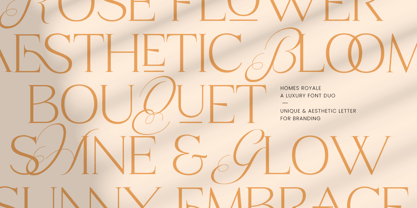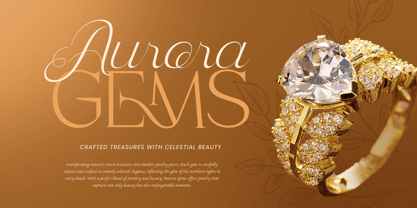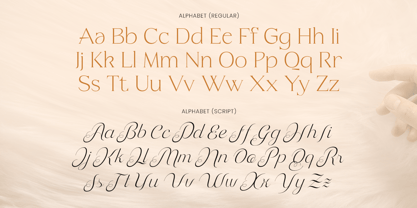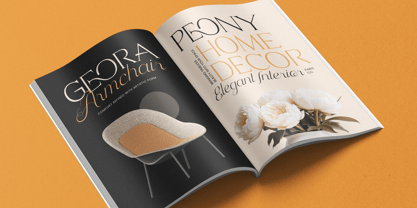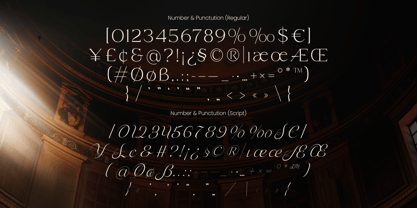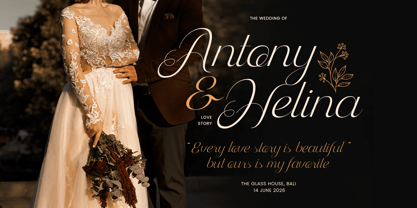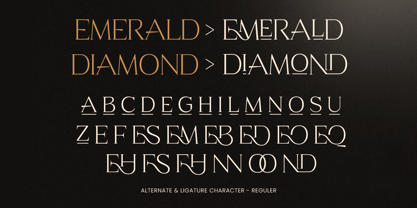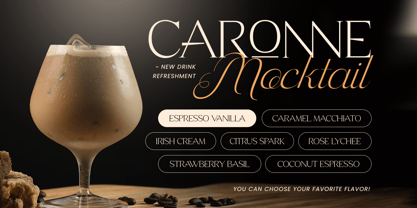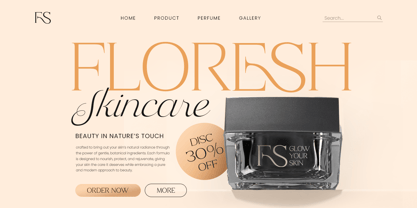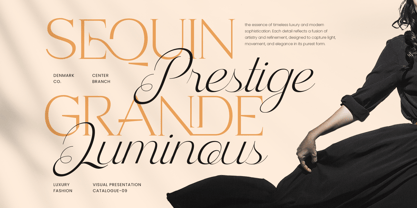
Homes Royale
The Homes Royale Font Family was designed by Zamroni Hamzah and published by Sensatype Studio. Homes Royale contains 2 styles and family package options. More about this family
Homes Royale is a luxury font duo that beautifully combines elegance and versatility. Featuring a refined serif and a graceful script, this pair is designed to bring sophistication and harmony to high-end branding, fashion editorials, and premium product design.
The serif font delivers a timeless, confident presence suitable for logos and headlines, while the script font adds a delicate handwritten touch, perfect for invitations, packaging, and personal branding. Together, they create a seamless balance of modern luxury and classic beauty.
Whether used individually or combined, Homes Royale makes every project feel polished, stylish, and exclusive — ideal for designers who want to express refinement and creativity in one cohesive look.
Homes Royale – Luxury Font Duo Features
• Two complementary fonts (Serif & Script) for elegant pairing
• Perfect for branding, invitations, packaging, and editorials
• Luxurious, timeless style with refined typographic balance
• Ideal for fashion, lifestyle, and creative industries
• Uppercase, lowercase, numerals, and punctuation included
• OpenType features for professional design flexibility
Redefine elegance with Homes Royale – the ultimate luxury font duo for sophisticated branding, fashion, and editorial design. ✨